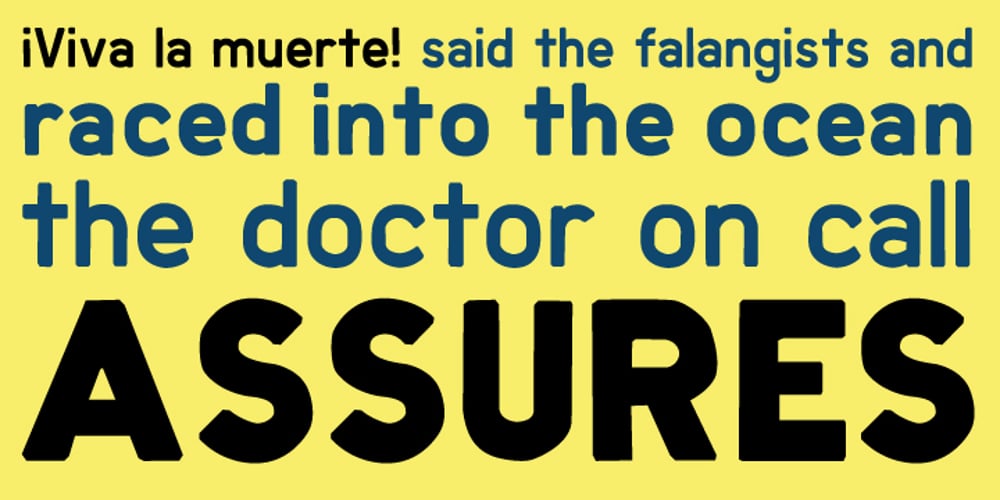
Marquee Font Family was designed by Pablo A. Medina and published by Design is Culture. Marquee contains 3 styles and family package options. In 1994 I took a picture of an old movie marquee in Times Square, New York City. 7 years later, I decided to design a typeface based on the big plastic letters found in those old marquees. I scanned in the picture I took and began to draw the letterforms. Like most of my font designs, the initial inspiration came from an urban environment.